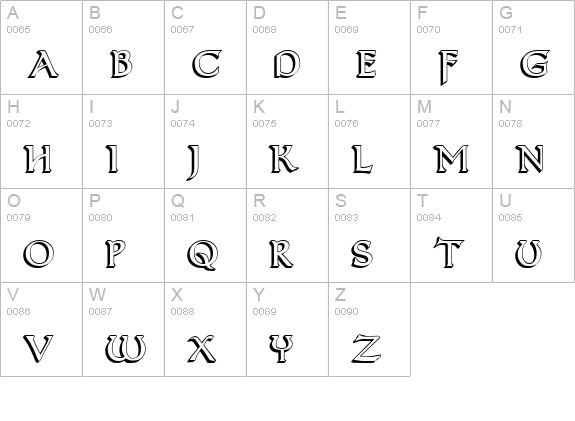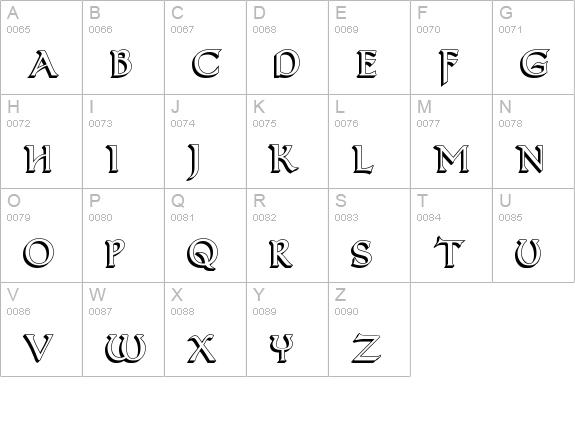
Introducing Dumbledor 3 3D font, a stunning and intricate typeface that will bring a touch of magic to your design projects. This font features a bold and eye-catching 3D effect, adding depth and dimension to your text. Perfect for creating standout headlines, posters, and logos, Dumbledor 3 is sure to captivate and impress. And the best part? Dumbledor 3 font is completely free to download at FontsMarket.com! Take advantage of this incredible offer and elevate your designs with this unique and elegant typeface. Download Dumbledor 3 today and let your creativity soar.